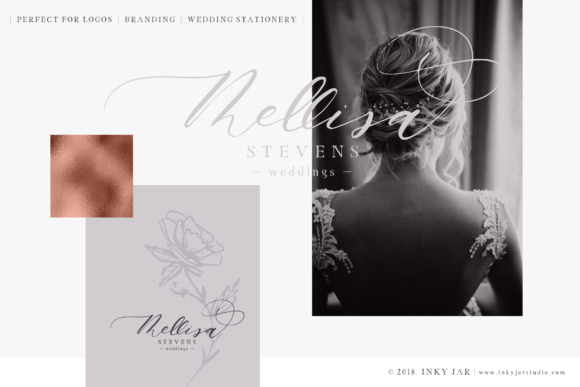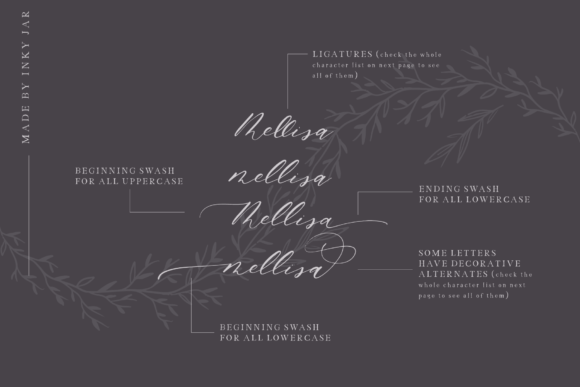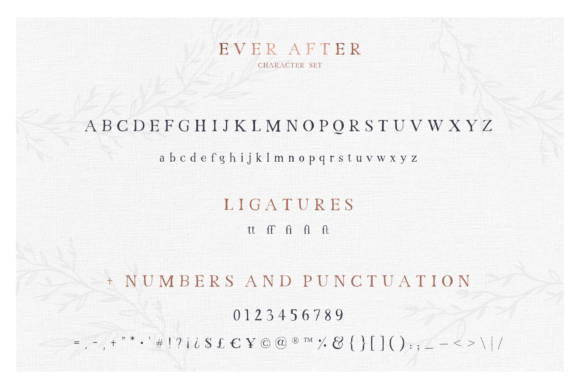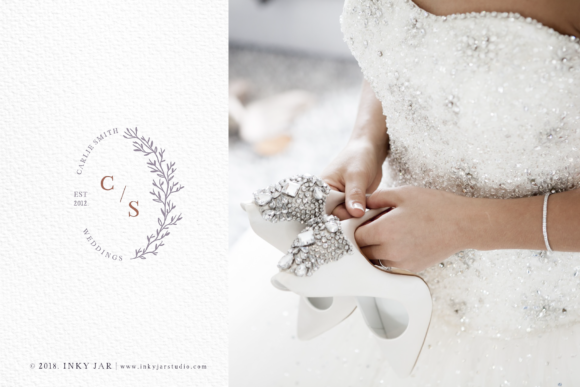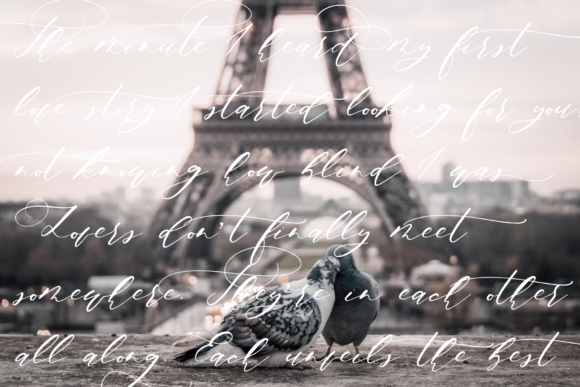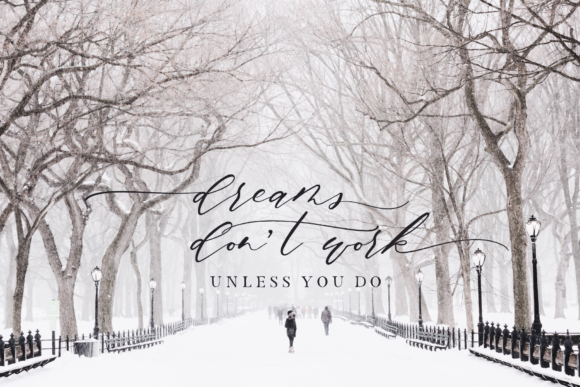
Introduction to Just Married Duo Font Font
Fonts play a crucial role in design, and the Just Married Duo Font font is a typeface that brings both character and versatility to any project. Whether you’re working on a branding project, a website, or a print design, the Just Married Duo Font font offers a unique style that can elevate your work.
The Just Married is a delicate font duo inspired by love, weddings and romance.
Itβs perfect for logos & branding, but also for wedding stationery and is full of extra goodies Included in this elegant font duo are also 2 bonus files.
Key Features of Just Married Duo Font Font
Why Choose Just Married Duo Font Font?
The Just Married Duo Font font is more than just a typeface β it’s a design tool that helps you communicate your message with style and clarity. Its unique character set and versatile design make it suitable for a wide range of applications, from elegant invitations to bold headlines.
With its carefully crafted letterforms and balanced proportions, the Just Married Duo Font font ensures readability and visual appeal across all mediums.
What makes Just Married Duo Font font special?
The Just Married Duo Font font stands out with its unique design, exceptional readability, and versatility across various design applications.